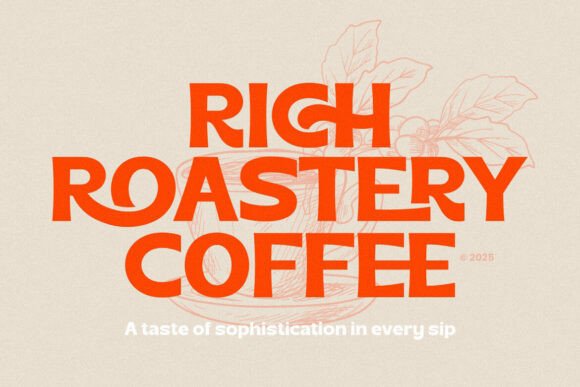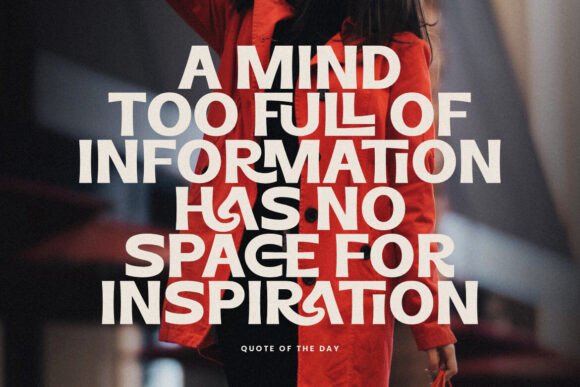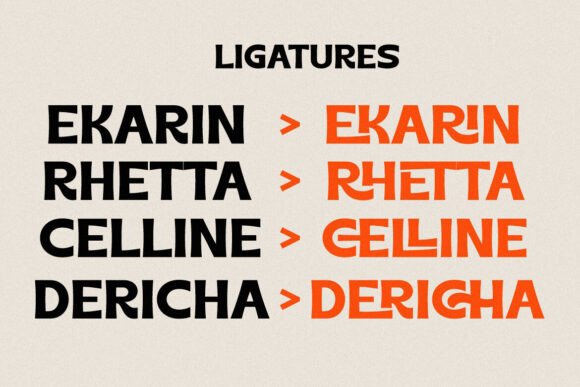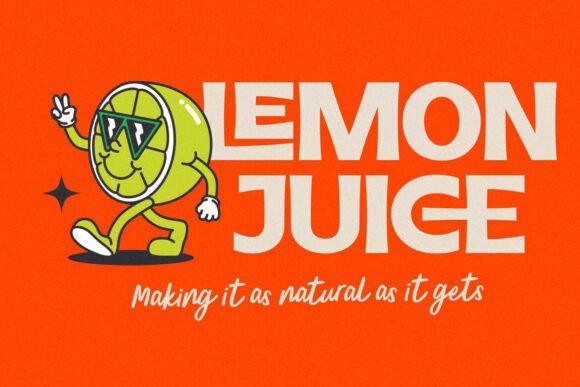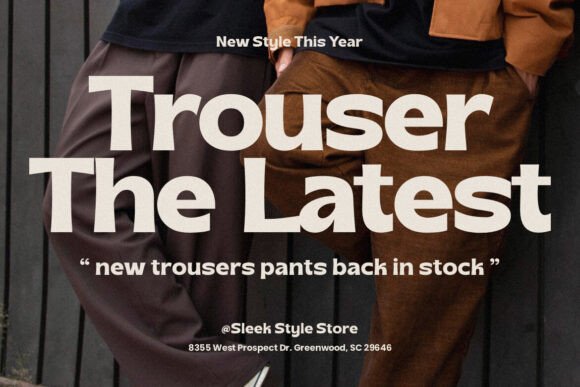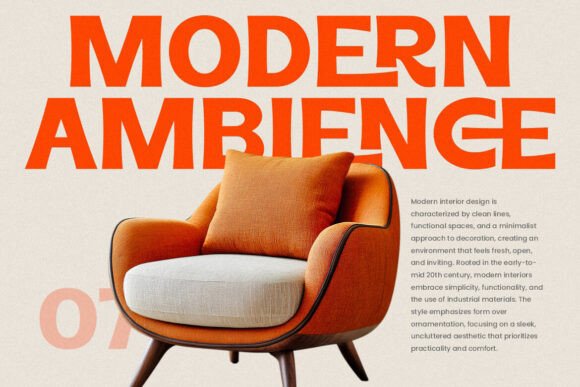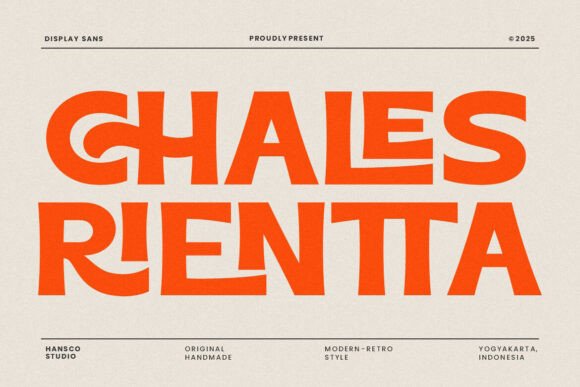
Introducing Chales Rientta Font: The Ultimate Multipurpose Display Font
Are you tired of using the same old fonts for your design projects? Look no further than Chales Rientta Font, a casual display sans serif font that is perfect for a wide range of applications. With its unique look and versatility, this font is sure to become a staple in your design toolkit.
What Makes Chales Rientta Font So Special?
Chales Rientta Font is a carefully crafted font that is designed to be both stylish and functional. Its sans serif design makes it easy to read, while its casual feel adds a touch of personality to any design. Whether you’re working on a logo, poster, book, or branding project, this font is sure to make your design stand out.
Multipurpose and Versatile
One of the best things about Chales Rientta Font is its versatility. This font is perfect for a wide range of projects, including:
- Logo design: Create a unique and memorable logo that stands out from the crowd.
- Crafts: Add a personal touch to your handmade crafts, such as cards, gift tags, and scrapbook pages.
- Posters: Create eye-catching posters that grab attention and communicate your message effectively.
- Books: Use Chales Rientta Font to add a touch of personality to your book designs, such as cookbooks, journals, and children’s books.
- Branding: Establish a consistent brand identity with this font, perfect for business cards, letterheads, and packaging.
- Quotes: Create inspiring and motivational quotes that are sure to resonate with your audience.
- Print templates: Use Chales Rientta Font to create stunning print templates for brochures, flyers, and more.
- Packaging: Add a touch of personality to your product packaging with this font.
- Product labels: Create eye-catching product labels that stand out on store shelves.
- Advertising: Use Chales Rientta Font to create effective and engaging ads that grab attention.
What You Get with Chales Rientta Font
- Uppercase and lowercase letters
- Punctuation and symbols
- Numerals
- Ligature set
Why Choose Chales Rientta Font?
There are many fonts on the market that claim to be multipurpose and versatile, but Chales Rientta Font stands out from the rest. Here are just a few reasons why:
- Unique look: Chales Rientta Font has a one-of-a-kind design that is sure to make your designs stand out.
- High-quality: This font is carefully crafted to ensure that it is of the highest quality and looks great in any design.
Chales Rientta Font is a versatile and stylish display font that is perfect for a wide range of design projects. With its unique look, high-quality design, and ease of use, this font is sure to become a staple in your design toolkit. Whether you’re a designer, crafter, or DIY enthusiast, Chales Rientta Font is a great choice for any project. So why wait? Get Chales Rientta Font today and start creating stunning designs that stand out!